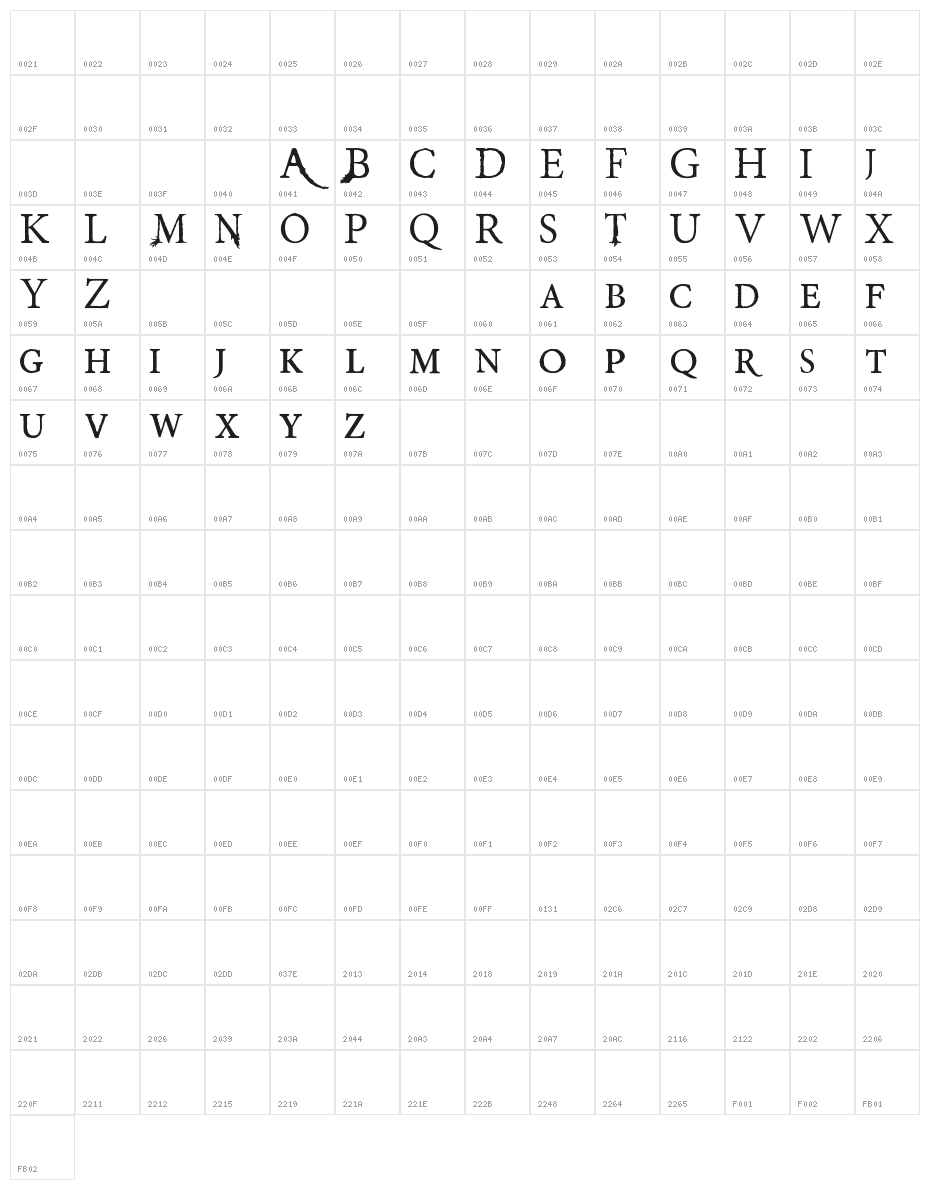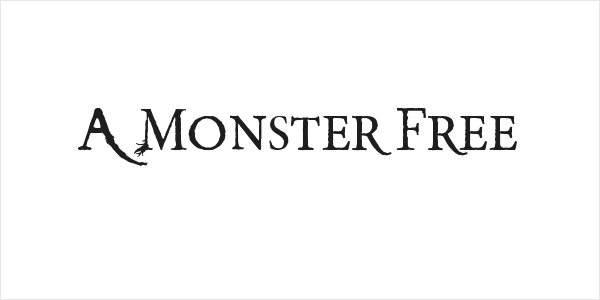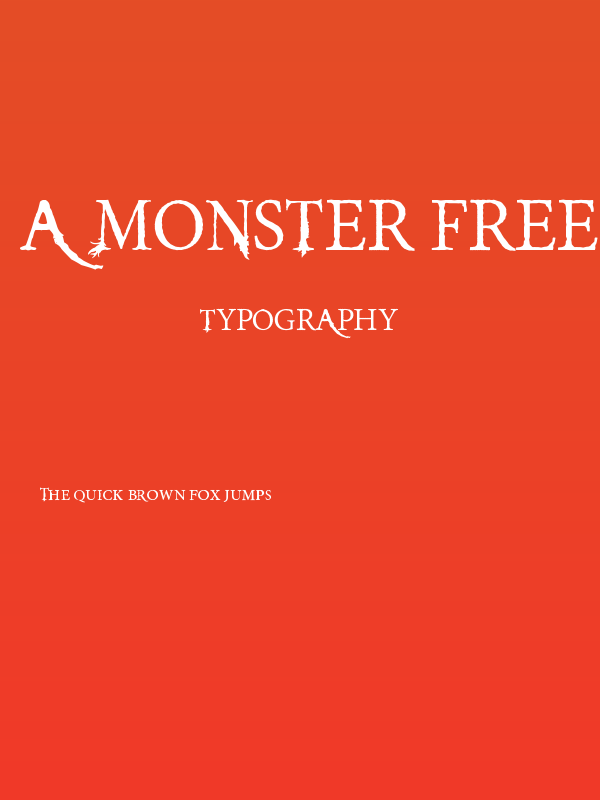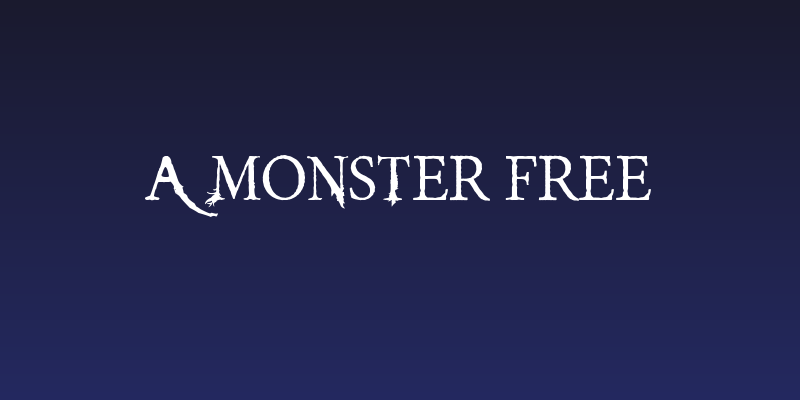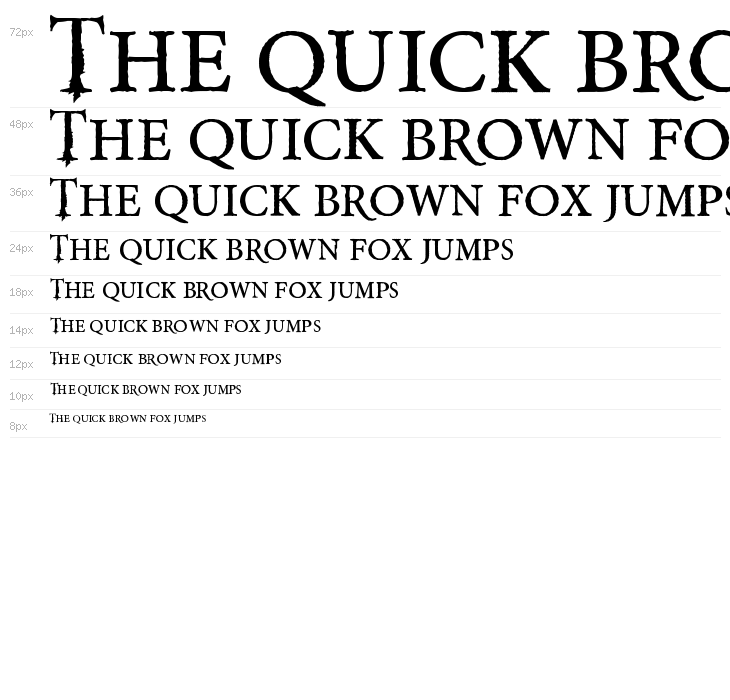
A Monster Free Font
| Gesamtstil | Gothic, Dramatic, Edgy |
| Anwendungsfall | Headlines, Posters, Book Covers |
| Vorgeschlagene Projekte | Ideal for horror-themed posters, fantasy book covers, Halloween invitations, or any project needing a dramatic and eye-catching typeface. |